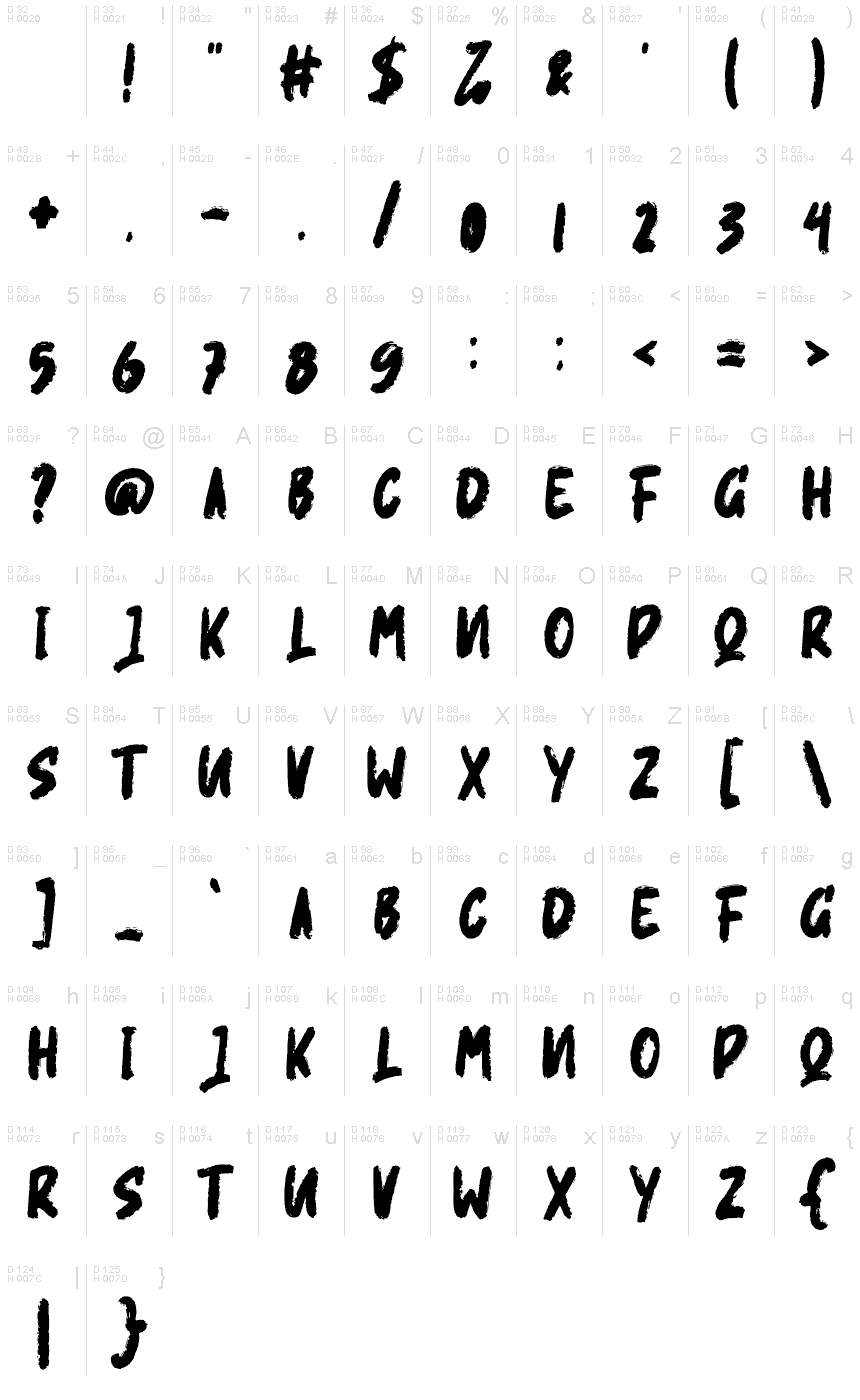
GOFIRLA
Gofirla font is a brush typeface by Skiiller Studio with a hand-painted aesthetic and dynamic design. Energetic, casual, and elegant, the condensed font presents great versatility within its sections and angles. Each letter has an expressive texture made of careless brush strokes which give them an artistic vibe. Raw and organic are the last features which make this typeface memorable.
Gofirla was made to logotypes as much as it was for paper print design: headings, titles, or texts in general can all be customized with this free font. It should also fit in quotes on t-shirts or branding on packaging. Other use cases are book covers, tattoos, posters, banners, stickers, greeting cards invitations...